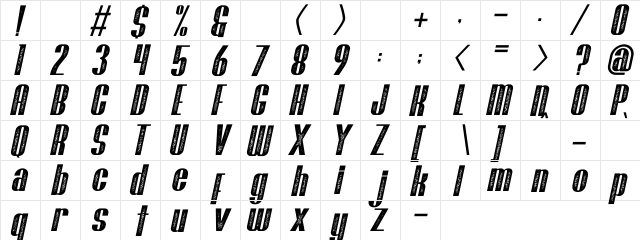
Brasham Stamp Italic Demo Stamp Italic
Design Context for Brasham Stamp Italic Demo Typeface
Brasham Stamp Italic Demo has the rough pragmatism of spray-painted stencil signage, adding a raw, street-level authenticity to designs. Its italic angle brings a sense of urgency and motion to the letterforms.
A strong choice for packaging that needs edge, warehouse aesthetics, and rough-and-ready visual identities.
Pro Tip: Use Brasham Stamp Italic Demo at large sizes on packaging, posters, or apparel where the stencil cutaways read clearly. Avoid small sizes where those gaps become visual noise.